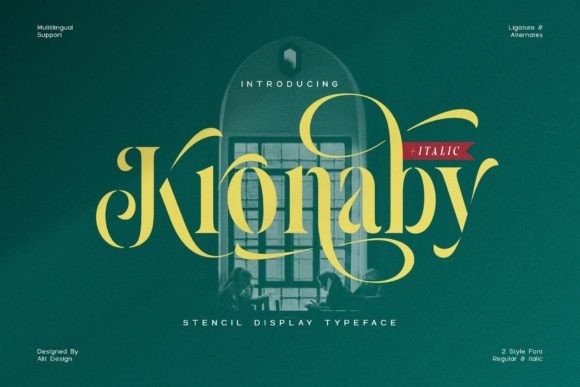
Are you tired of bland and overused fonts that don't capture your audience's attention? Look no further than Kronaby Font, the perfect choice for anyone searching for a versatile and unique typeface. Developed by the talented team at Alit Design, Kronaby Font is the ultimate serif font that adds a touch of elegance and sophistication to any project.
Kronaby Font stands out from other stencil fonts with its refined style and subtle swashes, giving your designs a modern and timeless look. The font family's classic theme makes it the ideal choice for a wide range of projects, from business cards to wedding invitations, and everything in between.
Not only is Kronaby Font aesthetically pleasing, but it is also incredibly user-friendly. Its PUA encoding ensures that you have easy access to all of the glyphs and swashes, making it simple to incorporate into your design without any hassle.
If you are searching for the best font for a rubber stamp, Kronaby Font is the clear winner. Its versatility and eye-catching style will make your stamp stand out and leave a lasting impression. Plus, the font's unique design adds a touch of personality and creativity to your stamp, making it truly one-of-a-kind.
In summary, Kronaby Font is the ultimate choice for anyone looking for a unique, eye-catching, and versatile serif font. Its elegant and sophisticated style, combined with its easy-to-use PUA encoding, make it the ideal choice for any design project. So why settle for a boring and overused font when you can elevate your design with Kronaby Font?